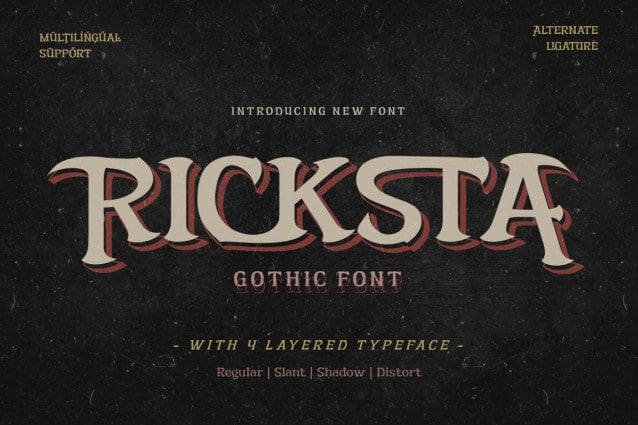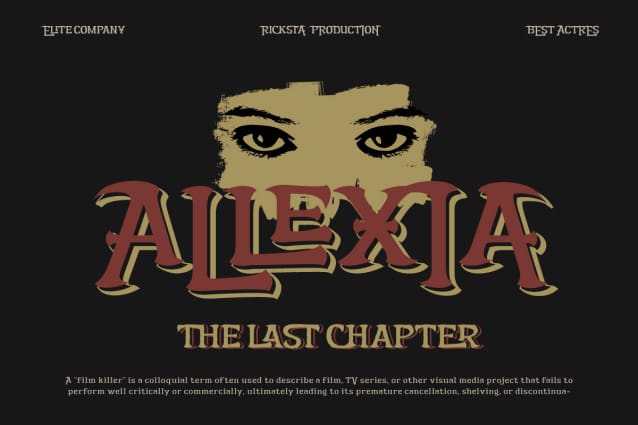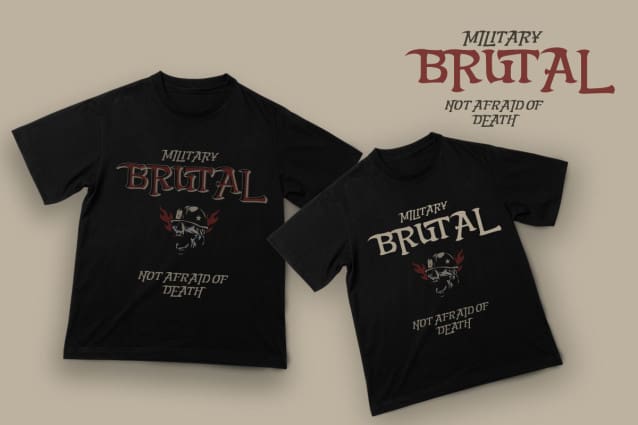
Ricksta Gothic Font
Ricksta Gothic Font is a charming gothic serif font, with a unique sharp touch. If you are looking for an eye-catching and truly powerful look in your various visual branding design projects, then Ricksta Gothic is the answer.
This font has been created with detail and precision to meet the needs of your branding projects. With families that include regular, shadow, slant, and distort, you have a variety of options to create a look that matches your brand identity.
Ricksta Gothic Font also features alternate ligatures and characters, giving you the ability to create truly unique and captivating letter designs. Ricksta also supports multiple languages. That way, you can reach a global audience without limitations. This is your chance to make your brand stand out with a strong character.
So, prepare yourself to turn your branding projects into stunning works of typographic art. Get Ricksta now and see how this unique gothic serif look will add a special appeal to your brand and your projects.